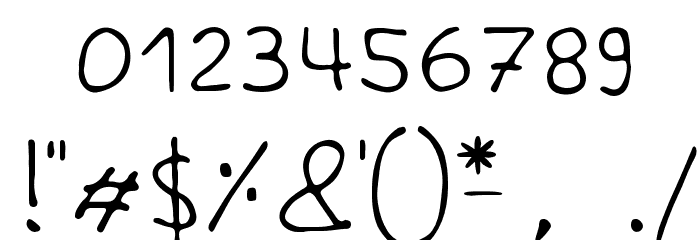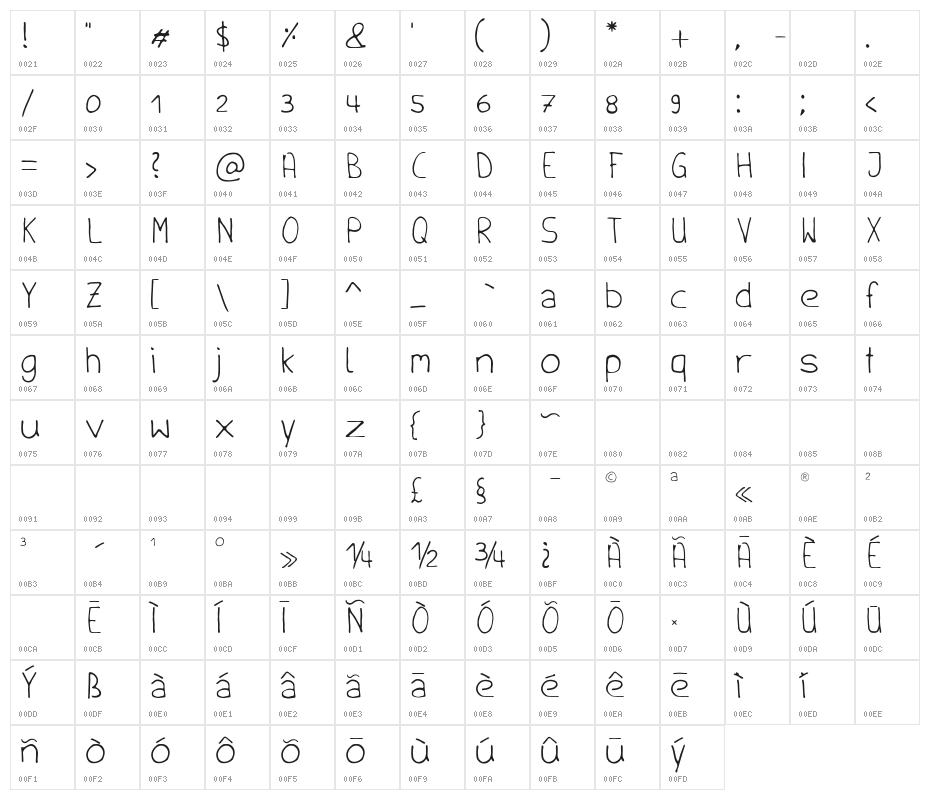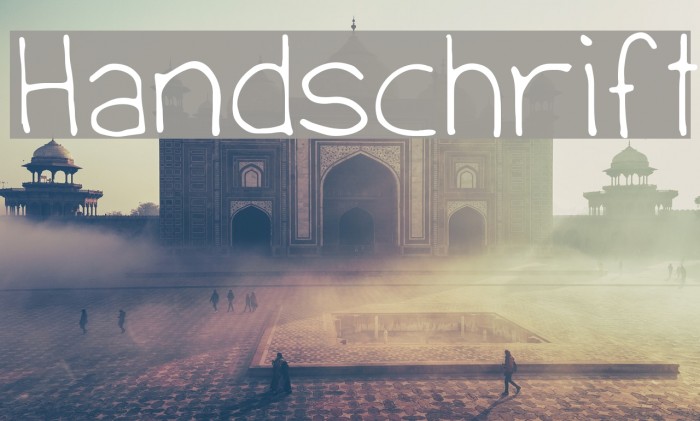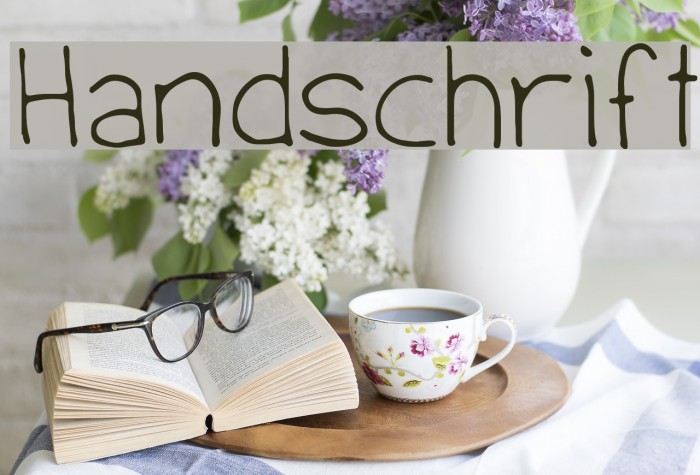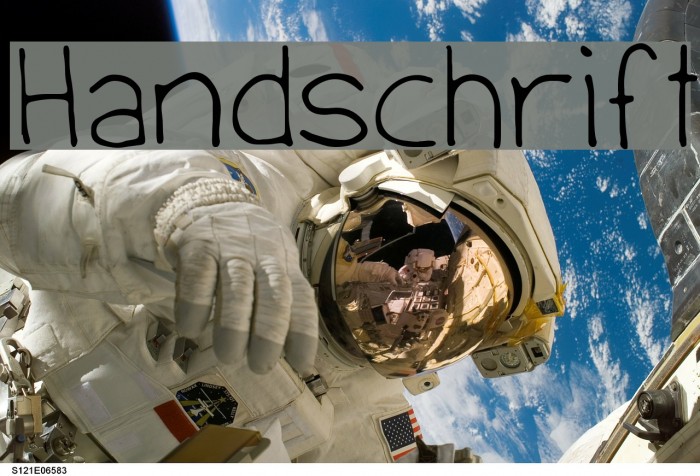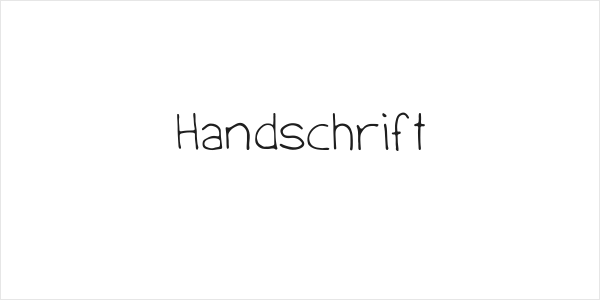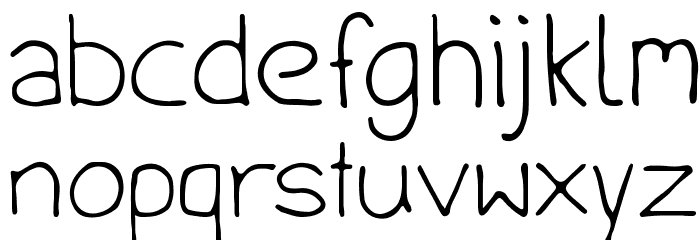
Handschrift Font
Handschrift Description
This font exudes a playful and casual handwritten style, characterized by its irregular strokes and organic flow. The letters are slightly uneven, giving it an authentic, hand-drawn appearance. The uppercase and lowercase letters maintain a consistent style, with rounded edges and a friendly demeanor. Numbers and special characters follow the same informal aesthetic, making the font versatile for various creative projects. Its simplicity and charm make it suitable for designs that require a personal touch, such as greeting cards, invitations, or children's books.